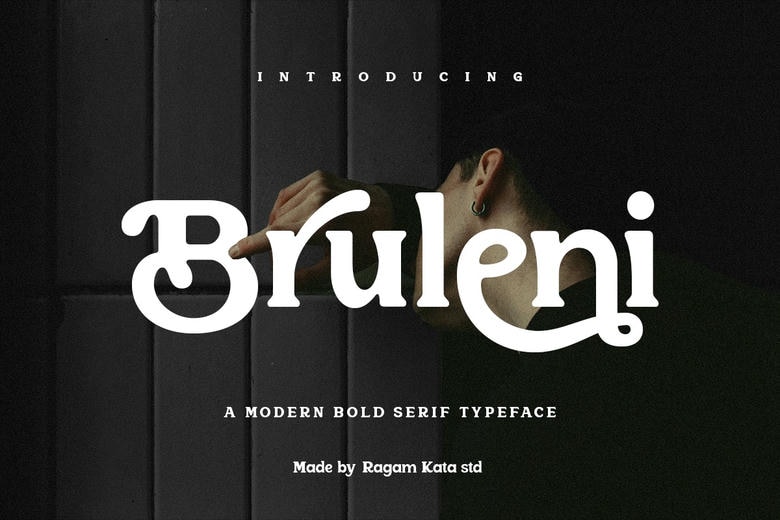
Bruleni Font
Bruleni is a very daring serif typeface with a point to prove. Its thick lines, stern serifs, and swagger make it perfect when boldness is needed to create luxury brands or editorial designs, and anything that projects an image of being fashionable.
The characters are all created with taste and finesse, and they have an air of both contemporary power and traditional elegance. Neither logos, nor packaging, nor headlines will be complete without the presence that Bruleni can bring to your visuals.
Bruleni Serif Font